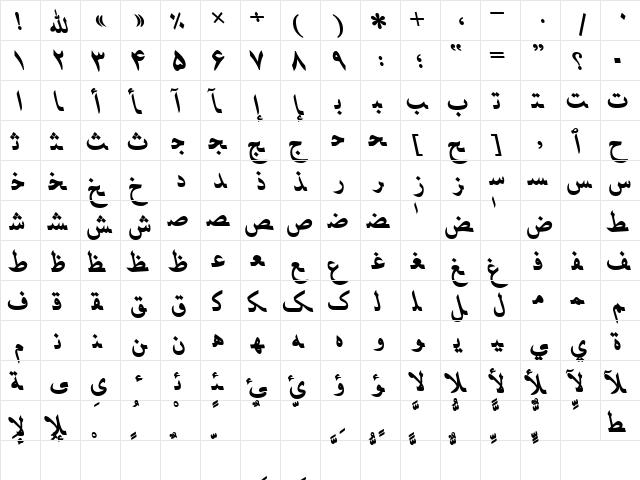
PersianNaskhSSK BoldItalic Font Preview
PersianNaskhSSK BoldItalic
PersianNaskhSSK BoldItalic Font Details
Design Context for PersianNaskhSSK Typeface
PersianNaskhSSK is a composed and adaptable typeface that performs quietly and consistently across a wide range of design contexts. The slanted form adds forward momentum and visual energy. Its bold stroke weight gives it real presence on the page.
Pro Tip: Use PersianNaskhSSK for emphasis, pull quotes, and subheadings where its slanted energy can add rhythm to the layout.